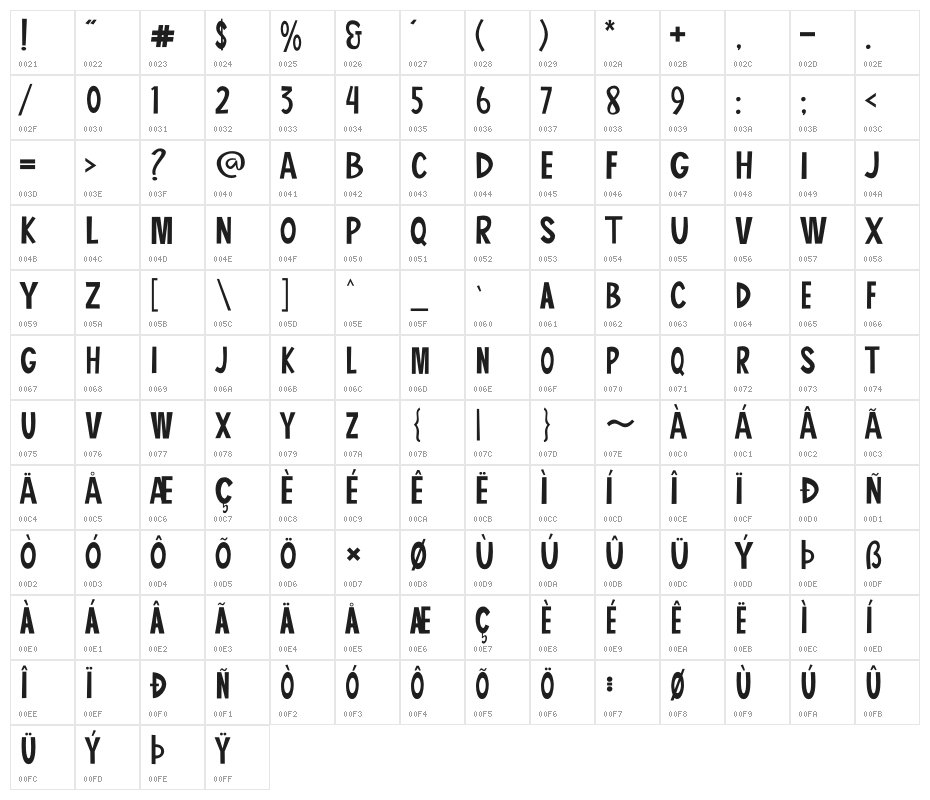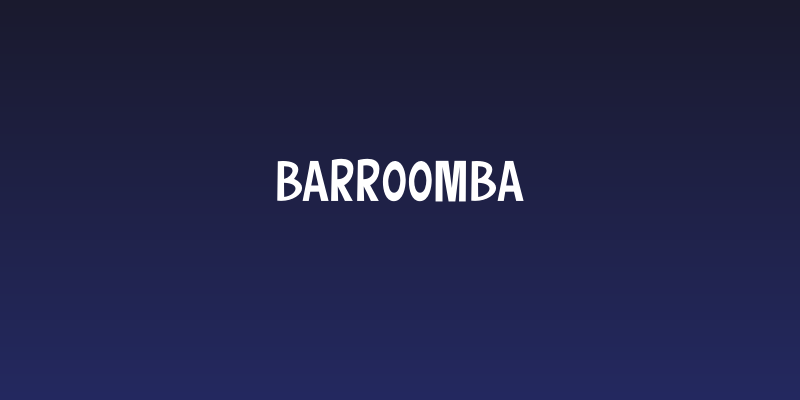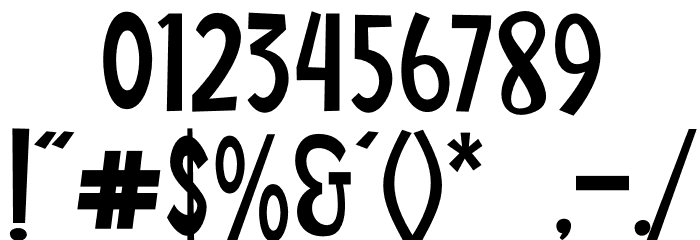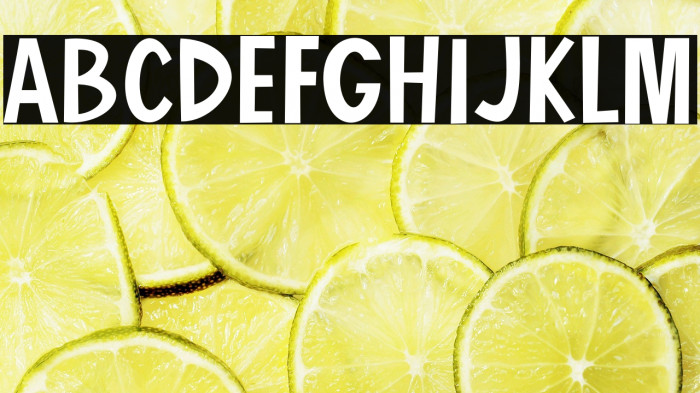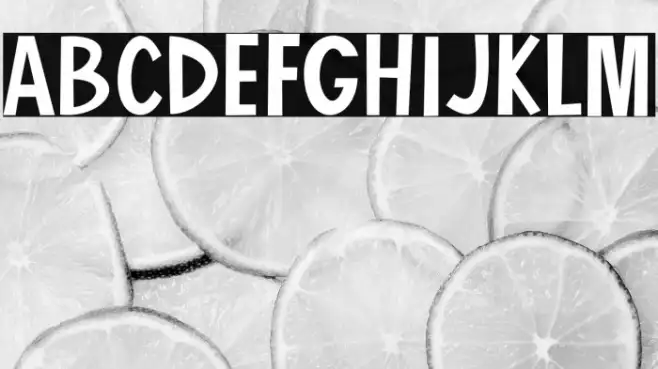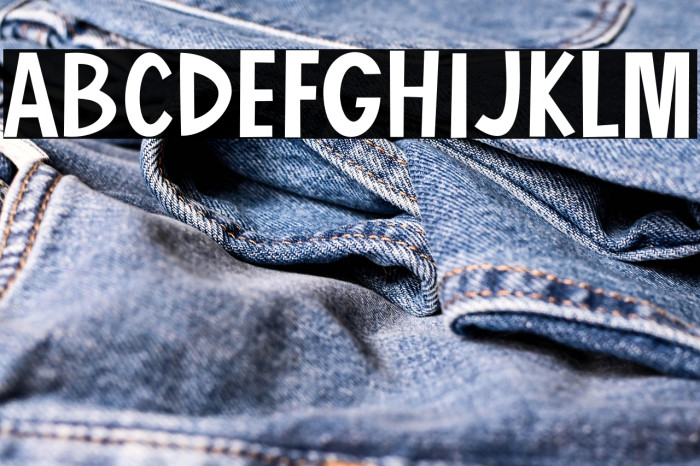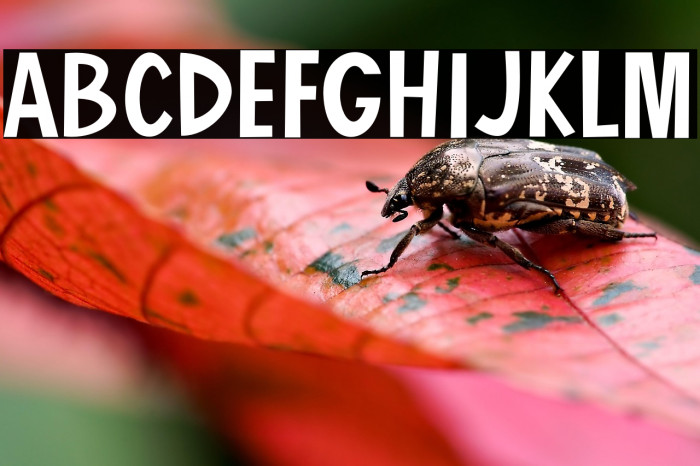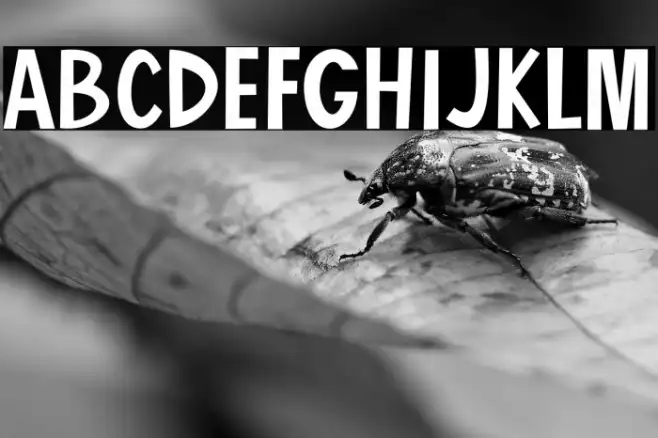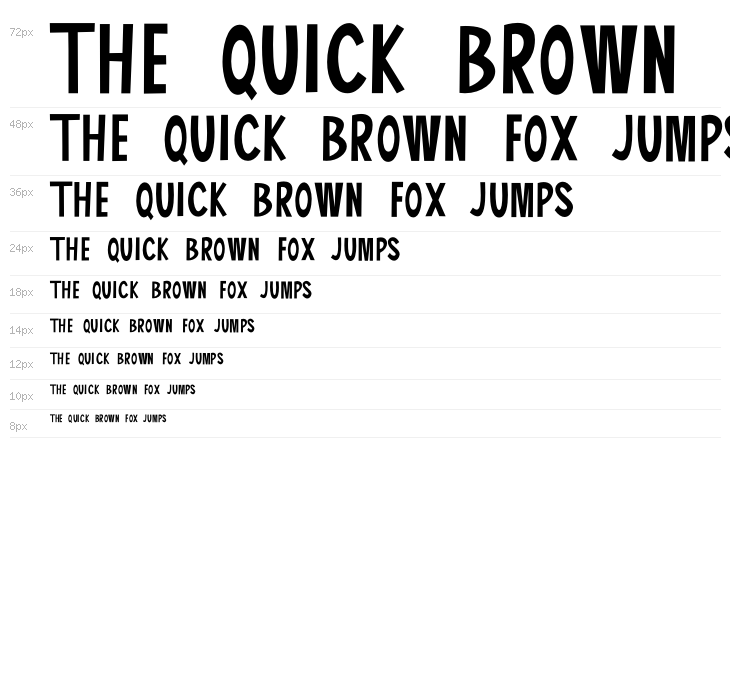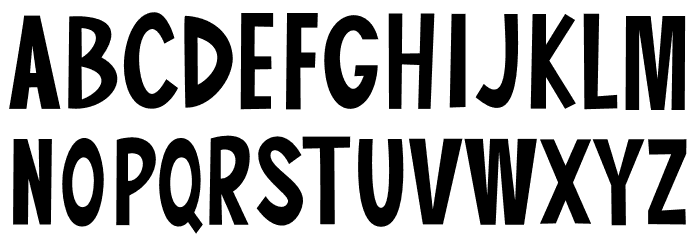
Barroomba Font
Barroomba Description
This font features a bold and playful style with a slightly irregular and hand-drawn appearance. The characters are tall and narrow, giving them a condensed look. The strokes are consistent in thickness, providing a uniform appearance across all characters. The uppercase letters maintain a strong presence, while the lowercase letters complement them with a slightly whimsical touch. The numerals are clear and easy to read, matching the overall playful aesthetic. Special characters are designed with the same boldness and creativity, making them suitable for various design applications.
| Proposed Projects | Ideal for children's books, playful branding, posters, and creative projects. |